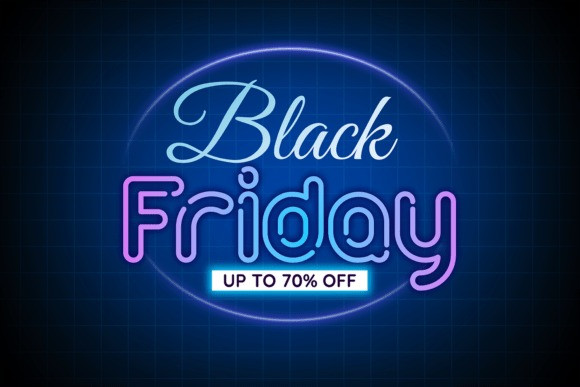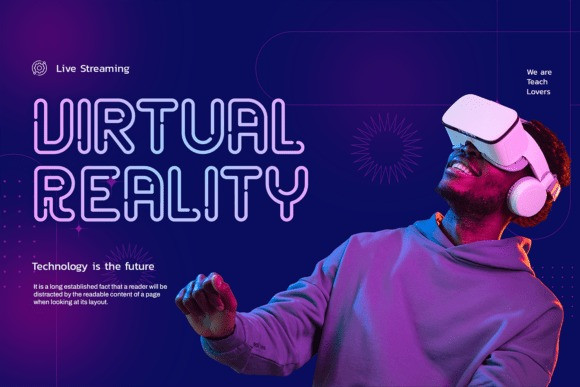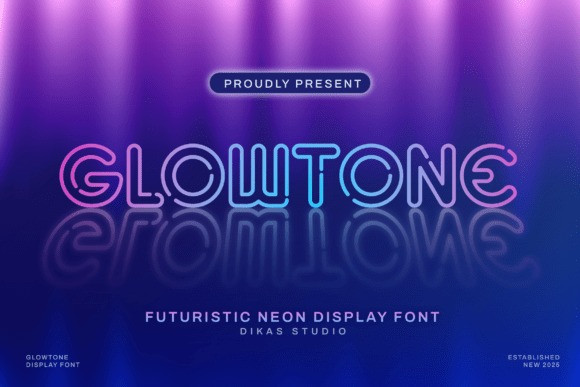
Glowtone Display Font
Glowtone Display Font – Neon Sign Font is a bold and radiant sans serif display typeface infused with the electric spirit of glowing lights and nightlife energy. Inspired by the curves and bends of real neon tubing, each letterform is crafted to emulate that unmistakable luminous aesthetic. Whether you’re designing signage, posters, event promos, or retro-futuristic branding, Glowtone instantly turns up the voltage.
Its clean structure and glowing appeal make it ideal for nightlife themes, club flyers, cyberpunk visuals, movie titles, gaming overlays, or any project that needs to stand out and shine with a vivid, electrified personality.